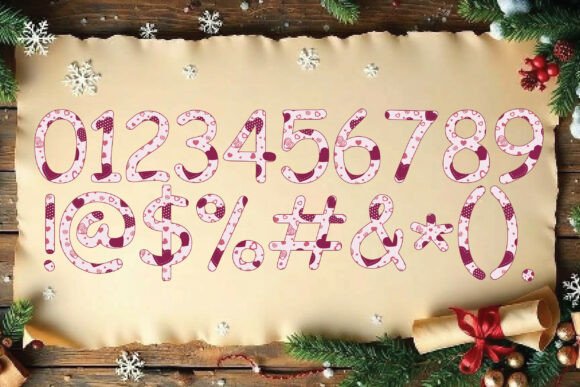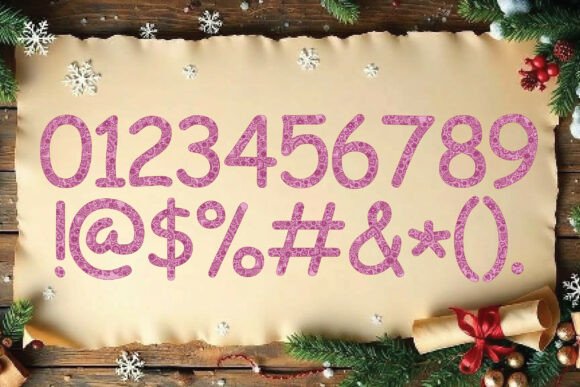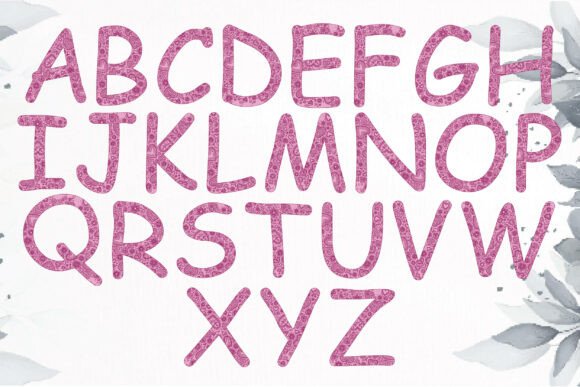
Have you ever sat at your desk, staring at a blank page, trying to come up with the perfect design to capture the essence of love and playfulness? We’ve all been there. The struggle is real, but the solution is here! Introducing the Heart Beat Bundle Font, a collection of four fashionable fonts that bring trendy, cute, and stylish vibes to your designs.
This bundle is perfect for designers who want to add a touch of whimsy and romance to their aesthetic projects. With fonts featuring love, heart details, playful patterns, and soft pink tones, you’ll be able to create designs that are sure to capture the hearts of your audience. Whether you’re a planner enthusiast, a scrapbooker, or a social media influencer, the Heart Beat Bundle Font is a valuable addition to your design arsenal.
Heart Beat Bundle Font Key Features
- Font Family: Heart Beat Bundle includes a collection of 12 unique fonts, each with its own distinct style and character.
- Unique Characteristics: Each font in the bundle features a unique heartbeat-inspired design element, adding a touch of creativity and personality to any design project.
- Character Count: The font bundle includes over 1,000 glyphs, ensuring that designers have a wide range of characters to choose from, including Latin, Cyrillic, and Greek alphabets.
Heart Beat Bundle Font Review
As a designer, I was excited to dive into the Heart Beat Bundle Font, and overall, I was not disappointed. ✨ The font’s unique blend of modern and vintage elements caught my eye, and it’s definitely a great choice for any project that needs a touch of personality.
- ✨ The font’s versatility: it can be used for a wide range of projects, from logos to packaging to editorial content.
- ✨ The font’s unique character set: it includes a variety of symbols and glyphs that add to its charm.
- ✨ The font’s scalability: it looks great in both large and small sizes.
However, there are a few limitations:
- ⚠️ The font may not be suitable for all projects: its unique style may not be the best fit for more conservative or traditional designs.
- ⚠️ The font’s complexity: while its unique elements are a strength, they can also make it more difficult to work with, especially for beginners.
Overall, I would give the Heart Beat Bundle Font 4 out of 5 stars. It’s a great choice for designers who want to add a bit of personality to their projects, but may not be the best fit for everyone.
To get the most out of the Heart Beat Bundle Font, try the following:
Use it in combination with bold or italic text for added emphasis.
Use it to create a unique and memorable brand identity.
The Heart Beat Bundle Font is perfect for:
Creative projects, such as posters, flyers, and brochures.
Branding and marketing materials, such as business cards and logos.
Personal projects, such as invitations and social media graphics.
What is the recommended font size for optimal readability with the Heart Beat Bundle Font?
The recommended font size for optimal readability with the Heart Beat Bundle Font is between 12pt and 18pt, depending on the application and intended use. However, you can experiment with different font sizes to find the perfect balance for your design.